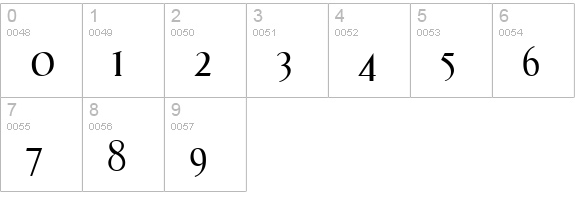
Effloresce is a stunningly elegant font that exudes sophistication and charm. Its graceful curves and delicate strokes make it the perfect choice for any design project that requires a touch of refinement. This font effortlessly captures attention and adds a sense of beauty to any piece of text it graces. Effloresce is a versatile font that can be used for a wide range of purposes, from branding and logo design to invitations and editorial layouts. Its timeless appeal and classic elegance make it a go-to choice for designers who want to create a lasting impression. One of the best things about Effloresce is that it is free! Yes, you read that right. This exquisite font is freely available to download at FontsMarket.com. Now, you can enjoy the luxurious beauty of Effloresce without breaking the bank. It's a rare opportunity to have such a high-quality font at your fingertips, without having to spend a dime. With Effloresce, your designs will effortlessly stand out from the crowd. Its exceptional legibility ensures that your message is delivered clearly and effectively. Whether you're designing a magazine spread, a wedding invitation, or a brand identity, Effloresce will elevate your work to a whole new level. So why wait? Head over to FontsMarket.com and download Effloresce today. Experience the beauty and elegance of this font for yourself and see how it can transform your designs. Don't miss out on this amazing opportunity to add a touch of luxury to your typography, all for free.